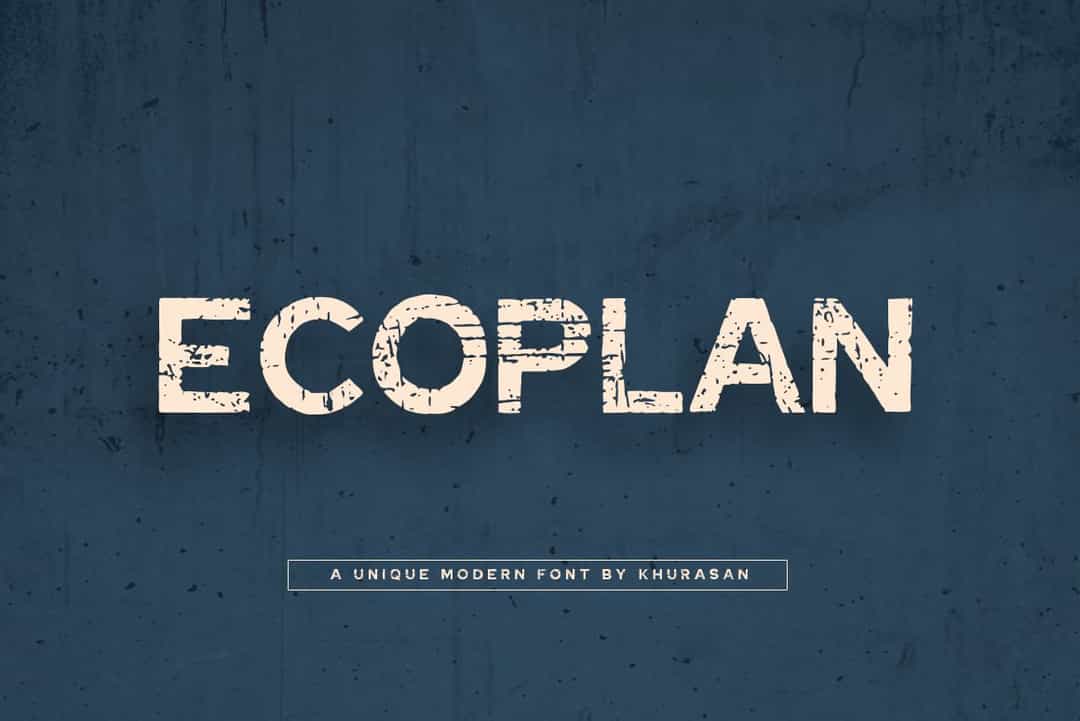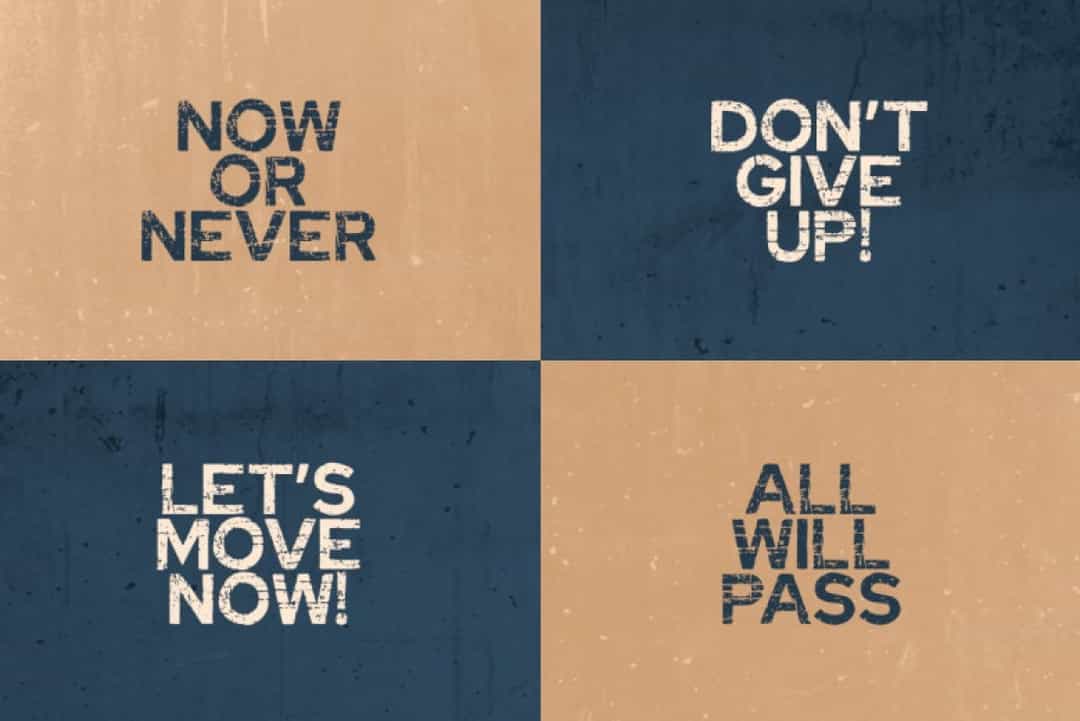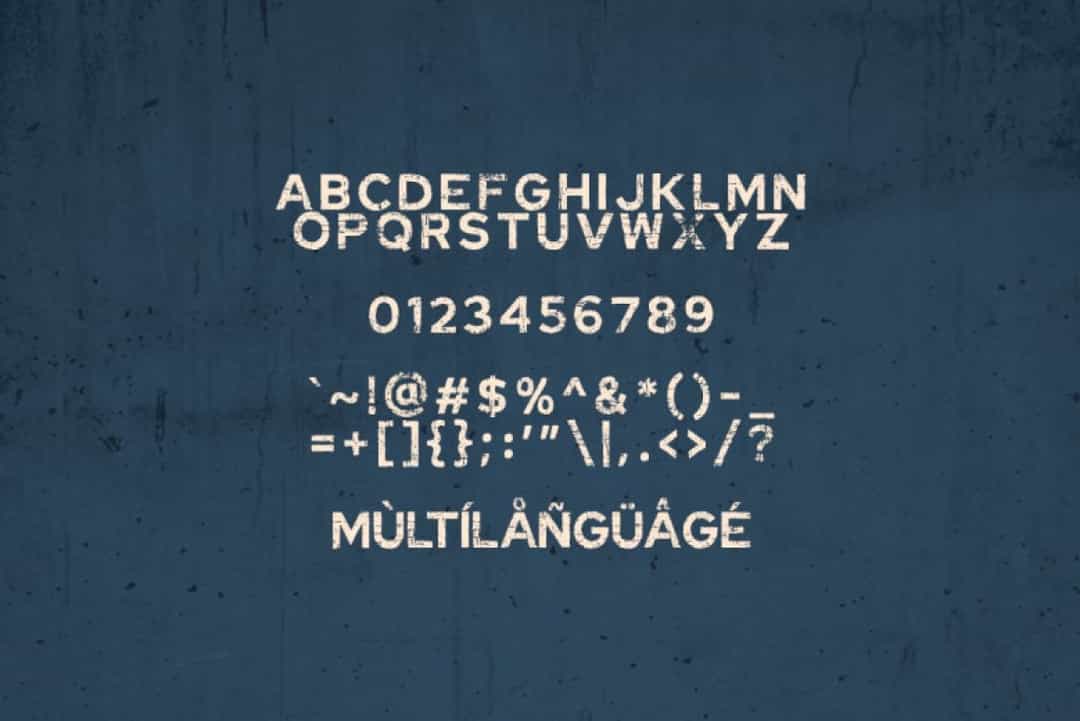
Discover Ecoplan Font, part of the Sans Serif Display Basic collection—a versatile and unique font perfect for adding a personal touch to your projects. Download it for free and enjoy crafting designs with style, from invitations to social media posts. This font is available exclusively for personal use, giving you the freedom to create without limits. Unlock your creativity with Ecoplan Font today!
Ecoplan is an eye-catching modern sans serif rough font designed specifically for logos, posters, magazine covers, book covers and banners! Discover this enjoyable font to use when designing unique projects – it easily complements numerous projects and will help your designs stand out! Let Ecoplan help make your creative ideas shine with Ecoplan versatility!